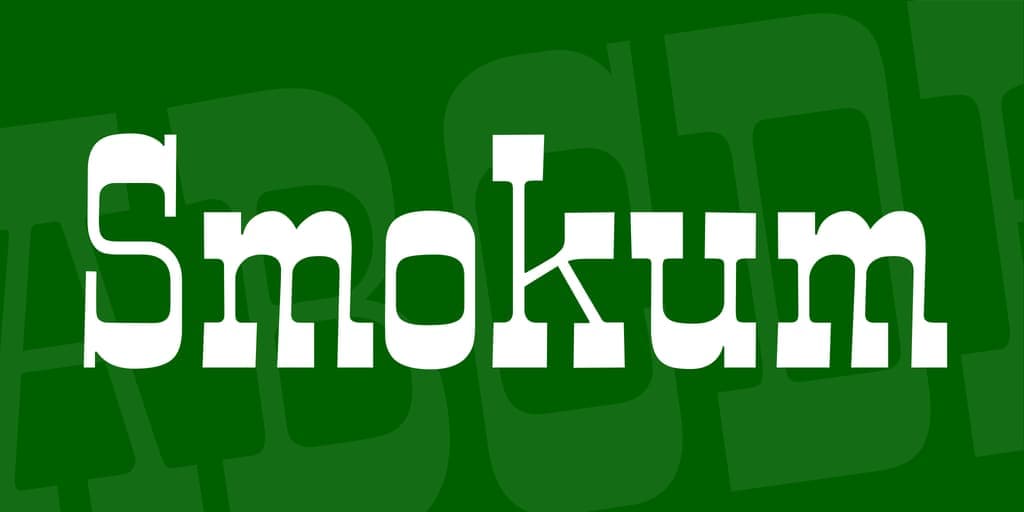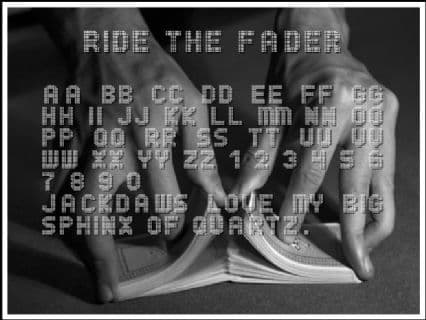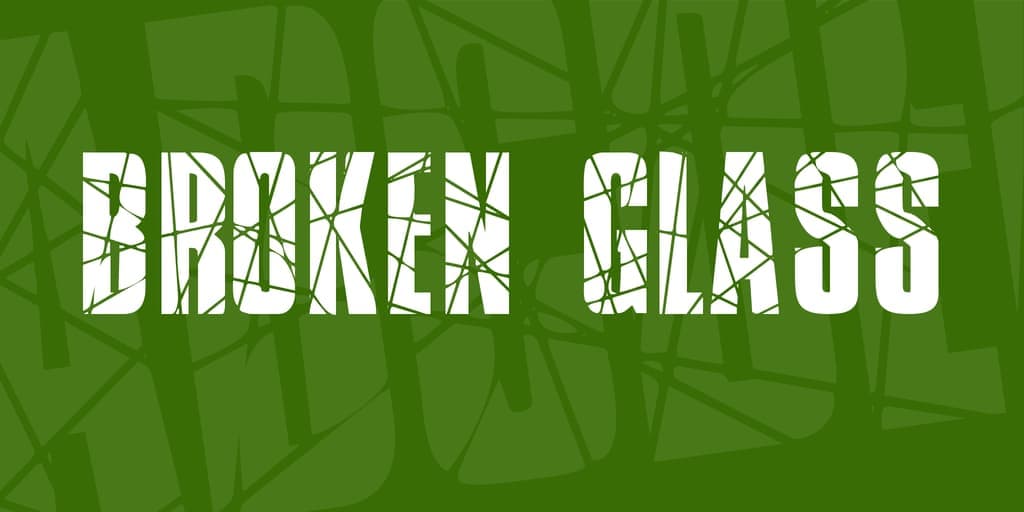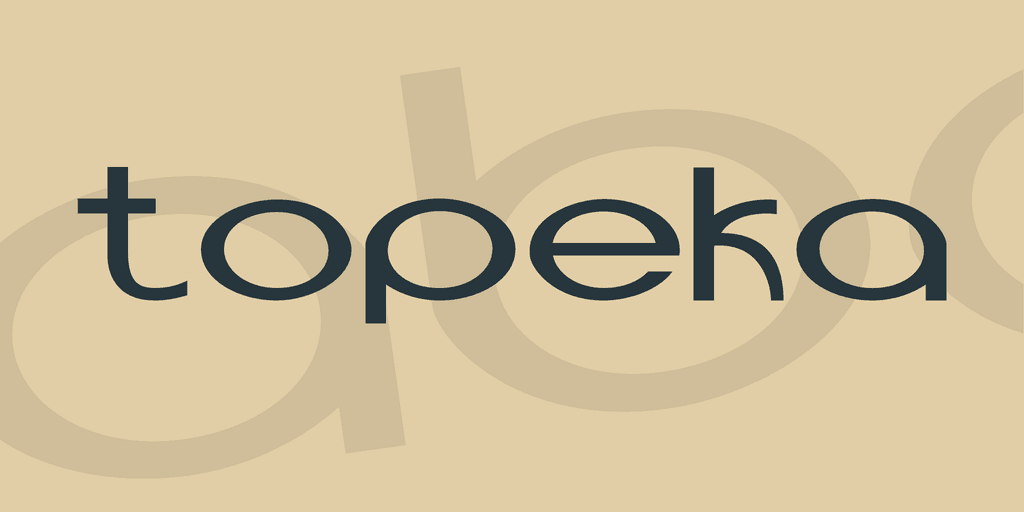
Typography fonts are powerful.
Designers' job is to use this power to propel projects forward and get their work noticed. Otherwise, it can work against their goals if it's not put enough effort into research.
It’s no rocket science, though, that you need a solid library with many cool typography fonts for designers, so you can create the atmosphere you want.
If you're like us, always on the lookout for the best typography fonts out there, building your font collection becomes second nature after a while.
It doesn't have to cost an arm and a leg either, because the web is full of free creative typography fonts that you can use.
You just have to find the right one for your project.
Check out some of what we consider to be the best free typography fonts online, and give your well-crafted content the visual appeal it deserves.
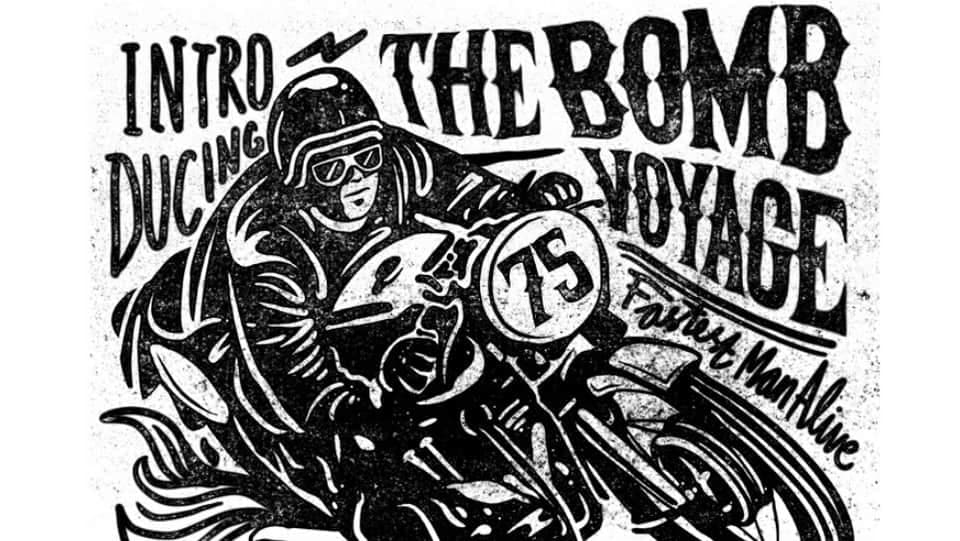
Born to be wild—this one is not for the faint-hearted.
Inspired by the smell of gasoline, cigarette smoke, and liquor, Helltown is an entirely handmade lettering typeface that reeks pure testosterone.
The pointy ends resemble metal spikes that you'd find on leather biker jackets.
The vintage concept with a rebellious retro vibe lends passion to your design. Helltown is ideal for tattoo artwork, posters, apparel and music-themed projects, and other authentic designs.
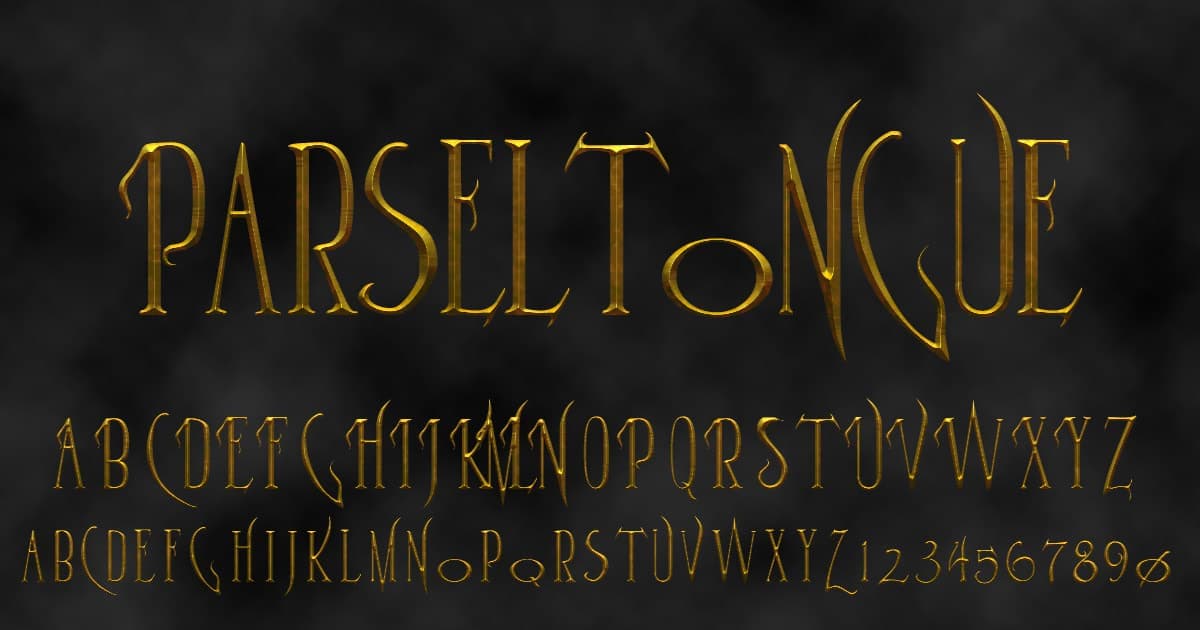
Finally, we have an answer to the question that plagued an entire generation: what font would Lord Voldemort use if he was a web designer?
If the serpentine aspects, slender vertical lines, exaggerated serifs, and distinctive texture are not obvious that this font was inspired by the Harry Potter series, the name gives it away.
Parseltongue is the language used in J.K. Rowling's books by dark magicians to summon snakes, other creepy serpents, and by the protagonist—mainly to scare his best buddies.
So if you want to add a mysterious and unearthly vibe to your design, or if you suspect that your client is a reptilian, give Parseltongue a try.
I mean using the font, not speaking in tongues. It works best for display ads.
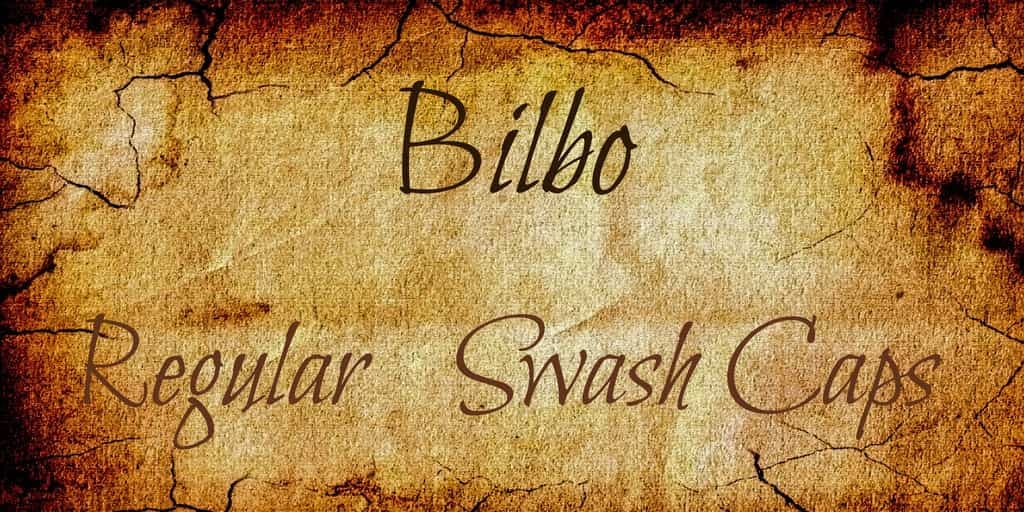
Another fantasy-inspired font, Bilbo is an easy-to-read calligraphic typeface with a fairytale vibe.
This is a style that would have fit perfectly into J.R.R. Tolkien's books or the Lord of the Rings movies.
It's much more versatile than your average display font, primarily if used in conjunction with its sister typeface, Bilbo Swash Caps. The latter is ideal for headlines.
If you have body text with a message that needs a bit of added warmth to come through, keep Bilbo at hand.
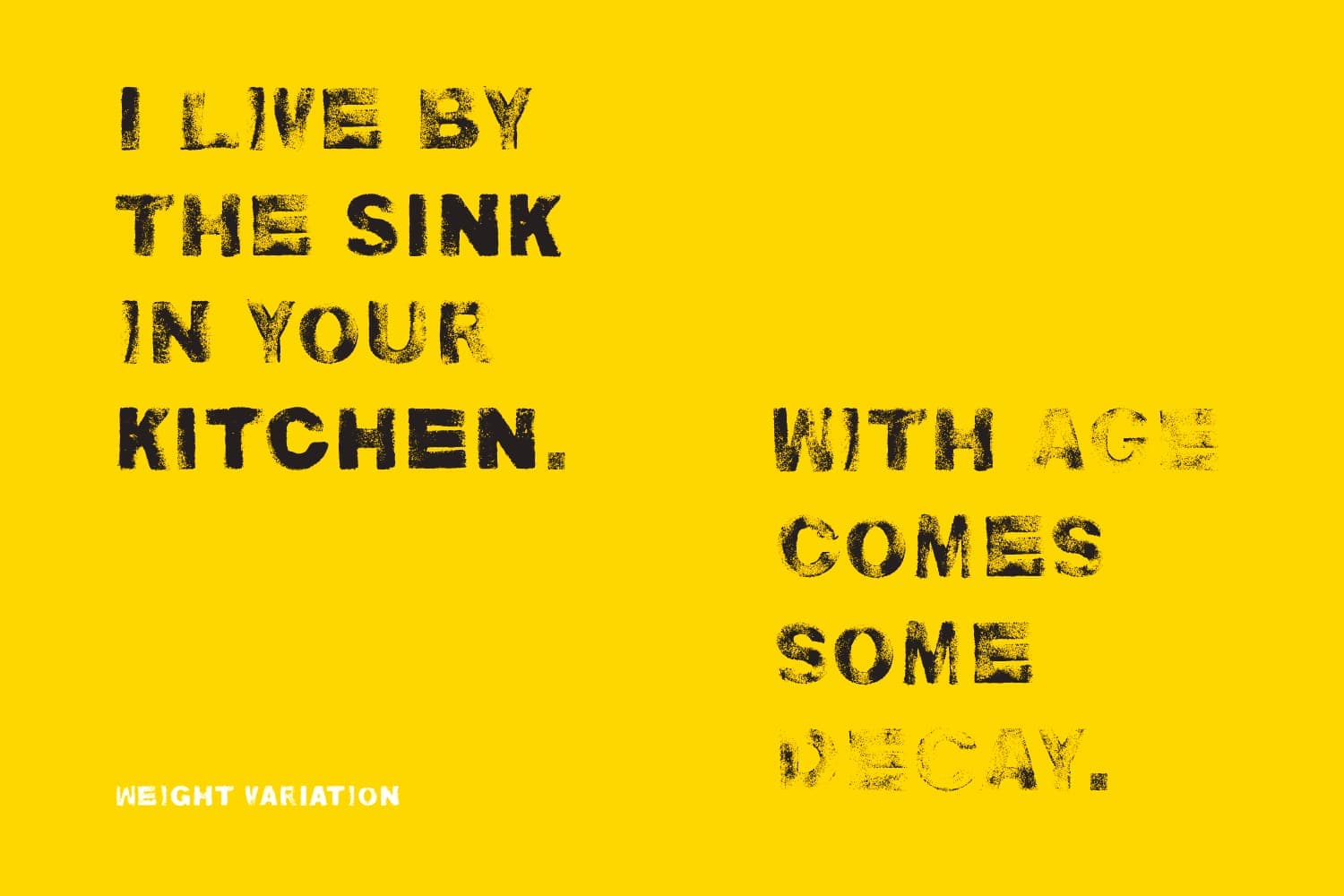
Hey November is a handwritten brush font, and by the looks of it, it was sketched up by a very confident person blessed with a massive dose of authenticity and charisma.
If the project you're working on needs to put these same traits forward, you can make your job easier by having Hey November do the talking.
This free typography font has an elegant and vintage feel. The cleverly designed character set makes it suitable for branding, social media posts, ads, packaging, photo watermarks, stationery, and even logos.
Oh, the golden age of IT!
Remember the times when the keyboard had a coiled cable, the mouse a ball in it, and we were starting to think the blue screen of death was going to remain a part of our earthly existence forever?
What was once the cutting edge of technology has now become nostalgia. If you want to tap into these feelings, Nine by five is perfect.
The low-res, pixelated effect takes you straight back into the nineties and beyond.
The name is easy to remember: the characters are drawn into 9×5 grid tiles. Seriously, we counted the squares, and we know you will too.
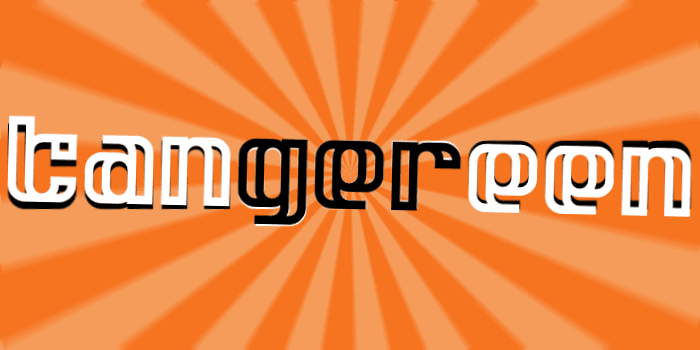
You know what they say: when life gives you tangerines, make a font out of them. Or something along those lines.
Life must have been really generous with the folks at Pixel Kitchen because they brought us a typeface with two different styles.
Tangereen is an all-lowercase, double-line design that supports Dutch and English.
This one is perfect for simple projects, but if you want something more versatile, Tangereen 2 has a more sophisticated design, completed by uppercase letters and twice as many glyphs.
The catch? You probably think Tangereen 2 is the paid version, but you'd be wrong.
Both of them are entirely free, and you can use them for personal and commercial projects as well.
You know those fonts that you know you'd seen somewhere, made a mental note that you'd use them one day, and when that day comes you can't remember their names for the life of you?
Cubik is not one of those, and it deserves a place among the best free typography fonts for this aspect alone.
In fact, it doesn't have to cost you anything.
Add the best of them to your personal collection, give them your creative touch, and amaze your clients with outstanding designs.